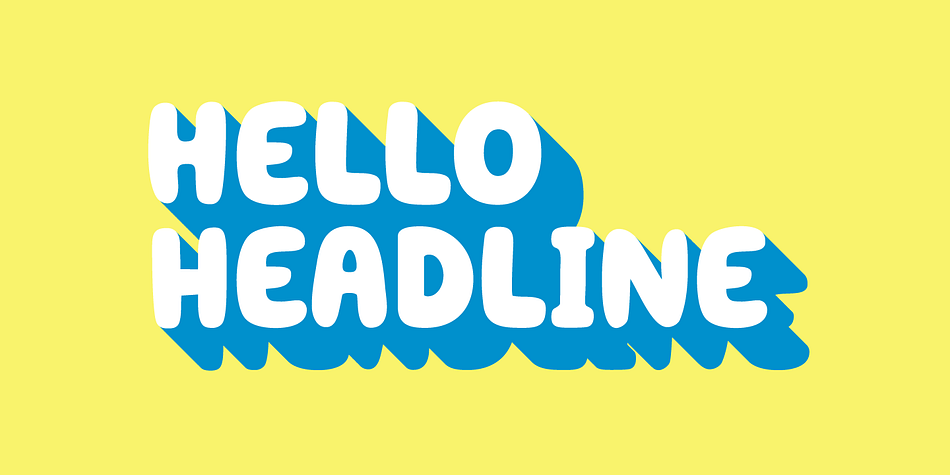
Hello Headline
Designed by Veneta Rangelova, Hello Headline is a comic and hand display font published by DearType.
Hello Headline is a bold and friendly typeface designed specifically (believe it or not) for headlines.
All of the letters are chunky and rounded, which is probably the reason why they are visible from afar.
And I mean, really, really afar.
The overall feel of the typeface is meant to be very casual and affable, so it is great for businesses that are fun, outgoing and sincere.
Hello Headline also comes with a Cyrillic extended glyph set.
Hello Headline is a bold and friendly typeface designed specifically (believe it or not) for headlines. All of the letters are chunky and rounded, which is probably the reason why they are visible from afar. And I mean, really, really afar. The overall feel of the typeface is meant to be very casual and affable, so it is great for businesses that are fun, outgoing and sincere.
Hello Headline also comes with a Cyrillic extended glyph set.
Foundry DearType
Styles Comic, Hand Display
Designer Veneta Rangelova